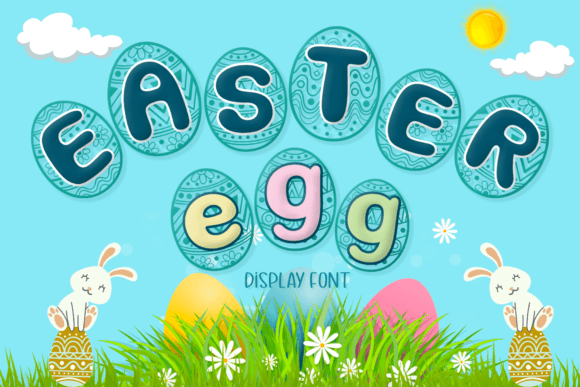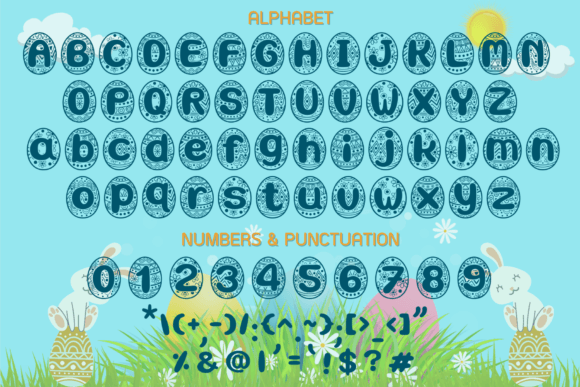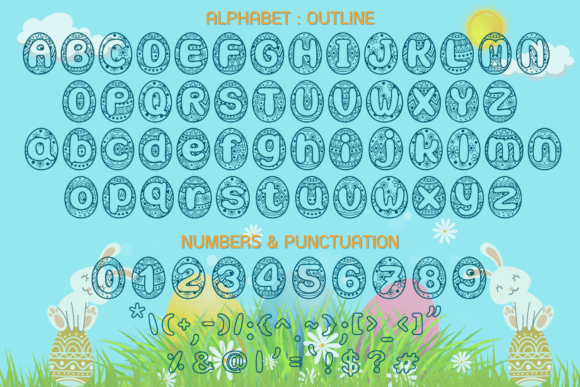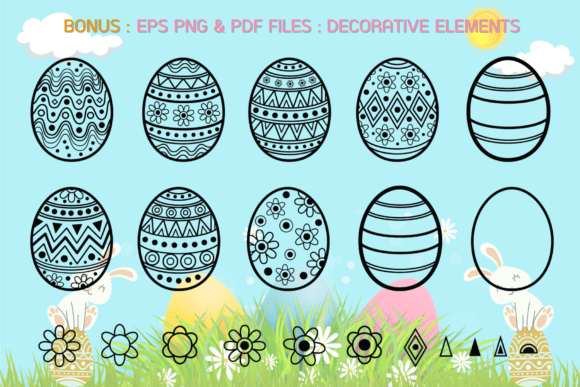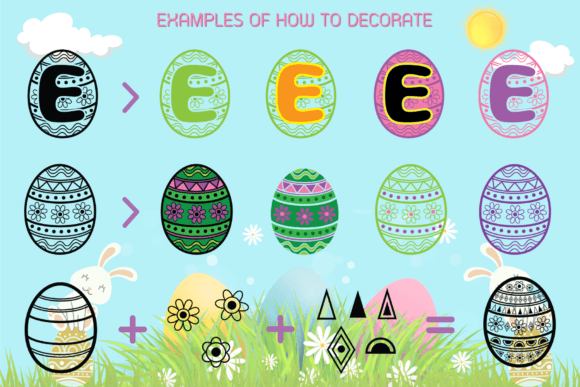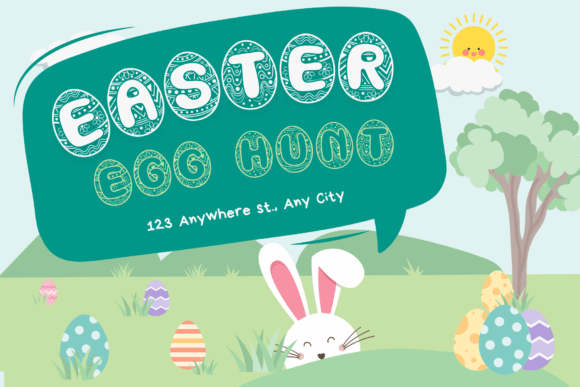
The Easter Egg Font: A Fun and Whimsical Design Delight
I’ll never forget the time I was working on an Easter-themed project for a client, and I just couldn’t find the right font to match the playful and festive vibe I was going for. That was until I stumbled upon the Easter Egg Font! 🤩 With its unique design featuring letters in tiny eggs, this font instantly brought a smile to my face and perfectly captured the essence of the holiday. In this article, I’ll share my experience with the Easter Egg Font, its features, and how to make the most of it in your designs.
A Personal Review of Easter Egg Font
I’ve had the pleasure of working with the Easter Egg Font on several projects, and here’s my honest review:
- ✨ Unique and playful design featuring letters in tiny eggs
- ✅ Clean lines and charming details that make it perfect for Easter-themed designs or any project that calls for a touch of fun and whimsy
- 🎉 Versatile and can be used for branding, packaging, and more
- 💻 Easy to read and works well in both digital and print formats
While the Easter Egg Font is an amazing design asset, there are a few things to keep in mind:
- ⚠️ The font’s unique design may not be suitable for formal or professional projects
- 🤔 Some letters and symbols may not be as intricate or detailed as other fonts
The Story Behind Easter Egg Font
The Easter Egg Font was designed by a creative team who wanted to capture the playful and festive spirit of Easter. Inspired by the joy of decorating eggs and the excitement of the holiday season, they crafted a unique and charming font that would bring a smile to anyone’s face. With its clean lines and delightful details, the Easter Egg Font has become a favorite among designers and crafters alike.
| Font Name | Easter Egg Font |
| What is the Easter Egg Font best used for? | The Easter Egg Font is perfect for Easter-themed designs, children’s designs, packaging, branding, and any project that calls for a touch of fun and whimsy. |
| Is the Easter Egg Font available in different styles or weights? | Currently, the Easter Egg Font is available in a single style. However, the font’s unique design and OpenType features provide plenty of creative possibilities. |